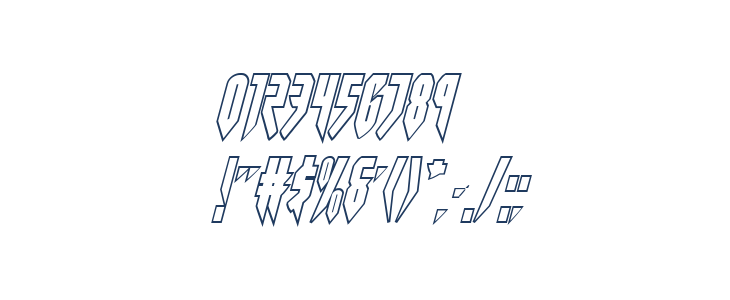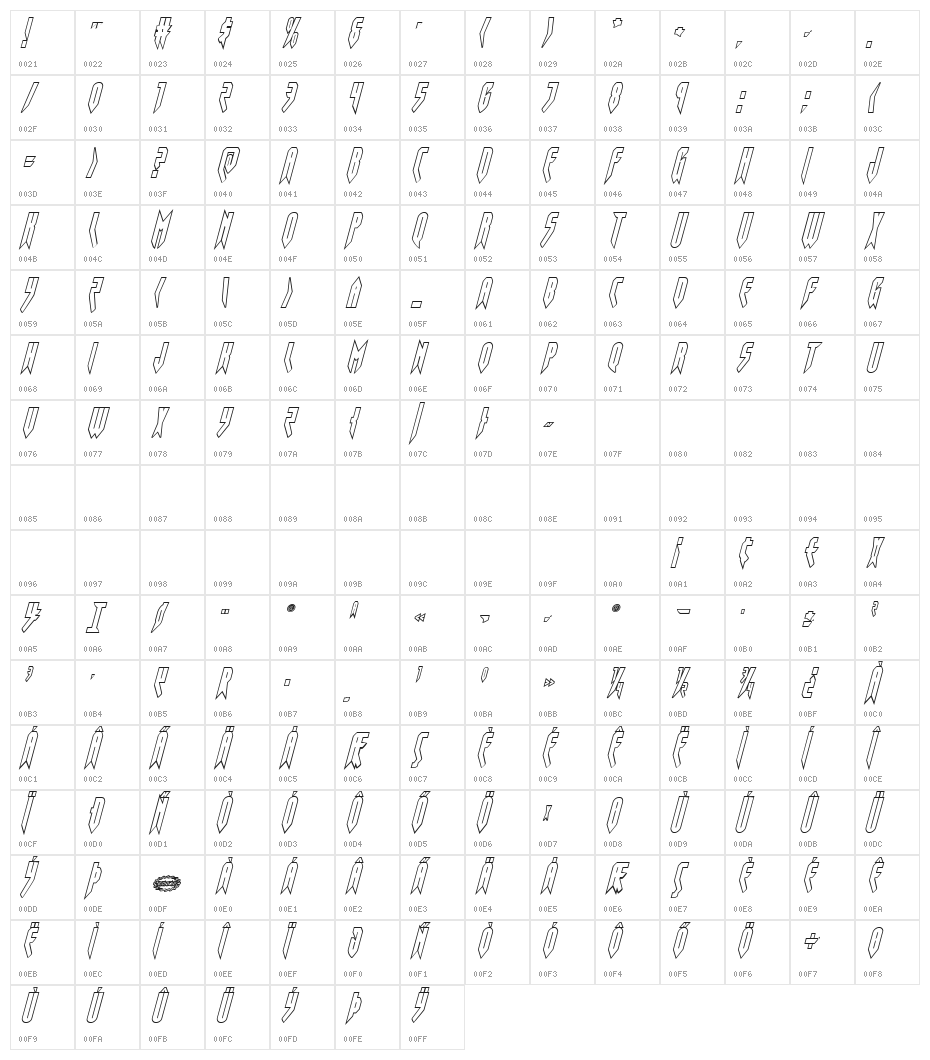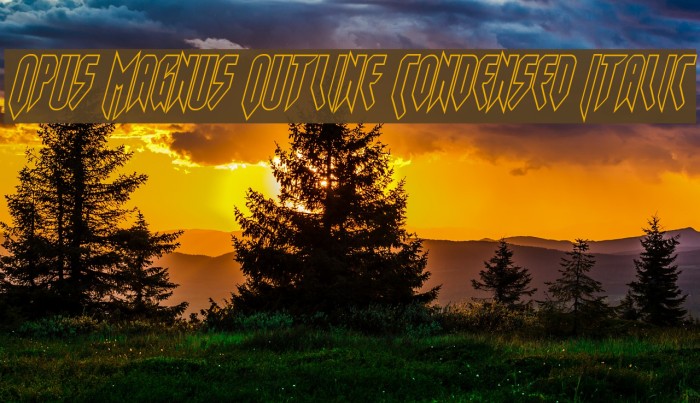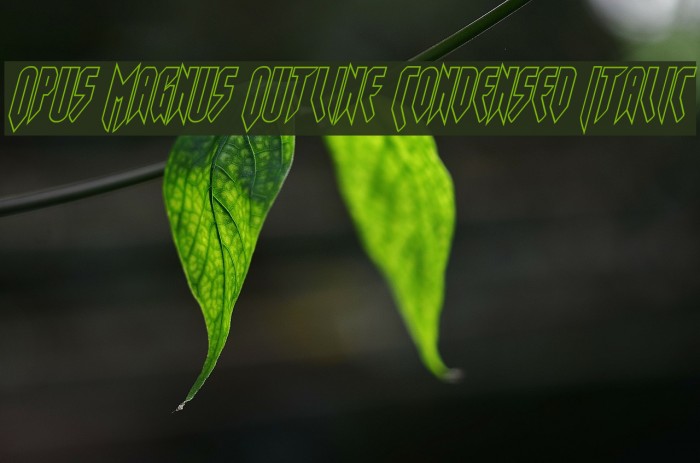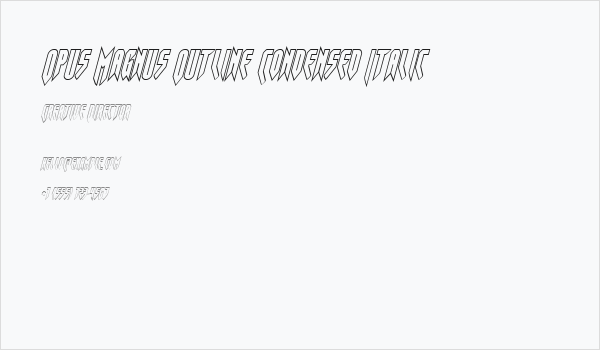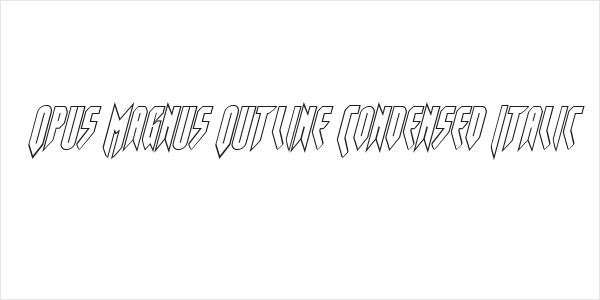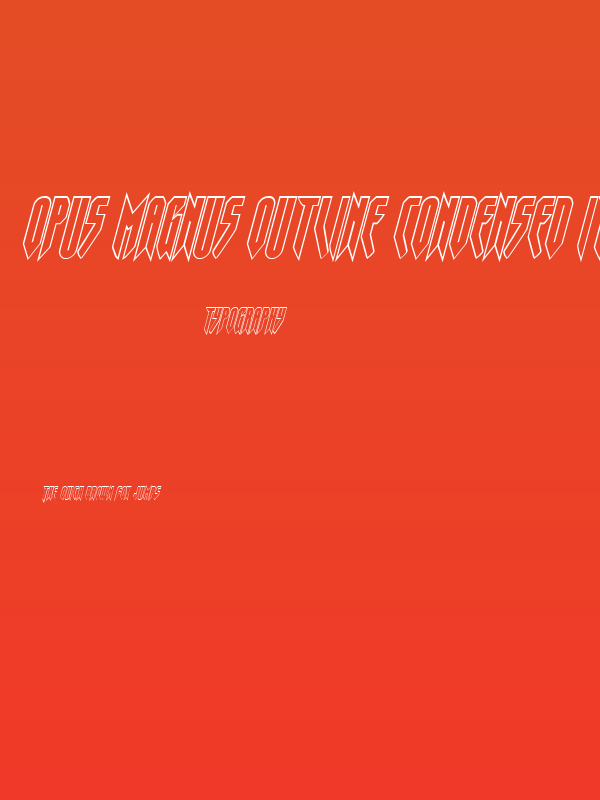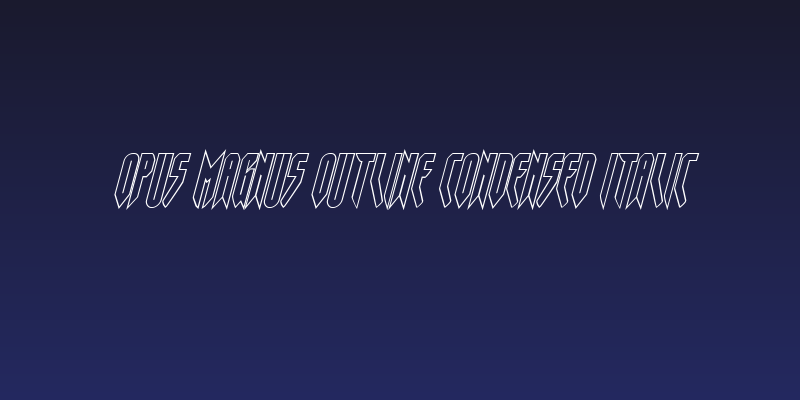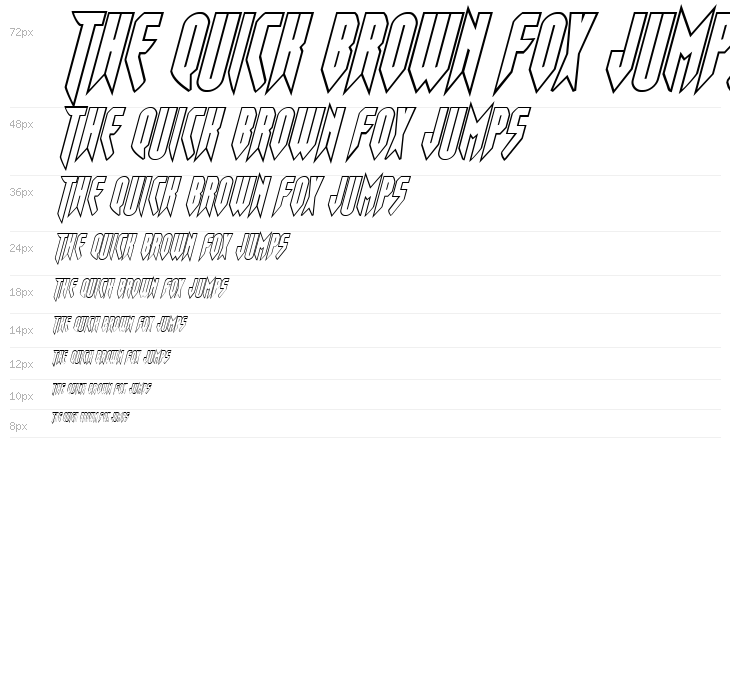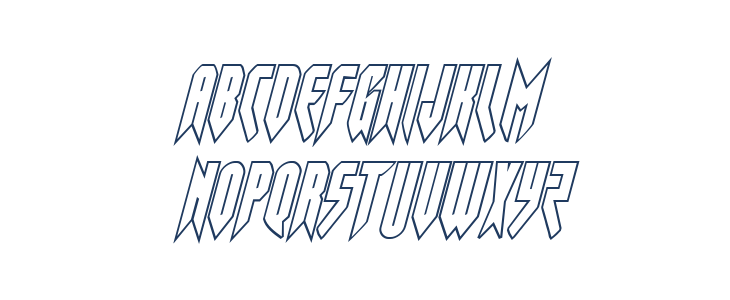
Opus Magnus Outline Condensed Italic Font
Opus Magnus Outline Condensed Italic Description
This font features a bold, angular design with a distinct outline style. The characters are sharply pointed, giving them a dynamic and aggressive appearance. The condensed form enhances its striking presence, making it ideal for attention-grabbing headlines. Its italic slant adds a sense of motion and urgency, further emphasizing its boldness. The font's geometric structure is consistent across all characters, providing a cohesive and uniform look. The spacing between characters is tight, which complements its condensed nature. This font is particularly suited for projects that require a modern and edgy aesthetic.